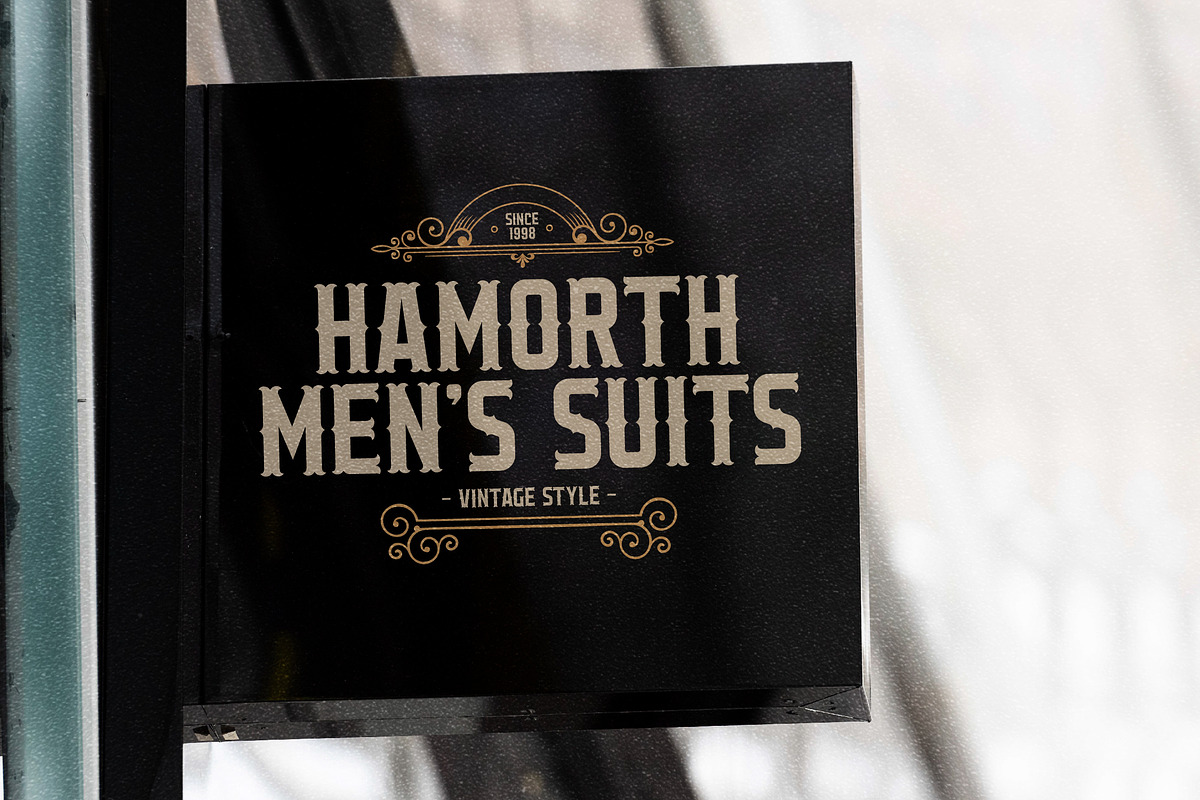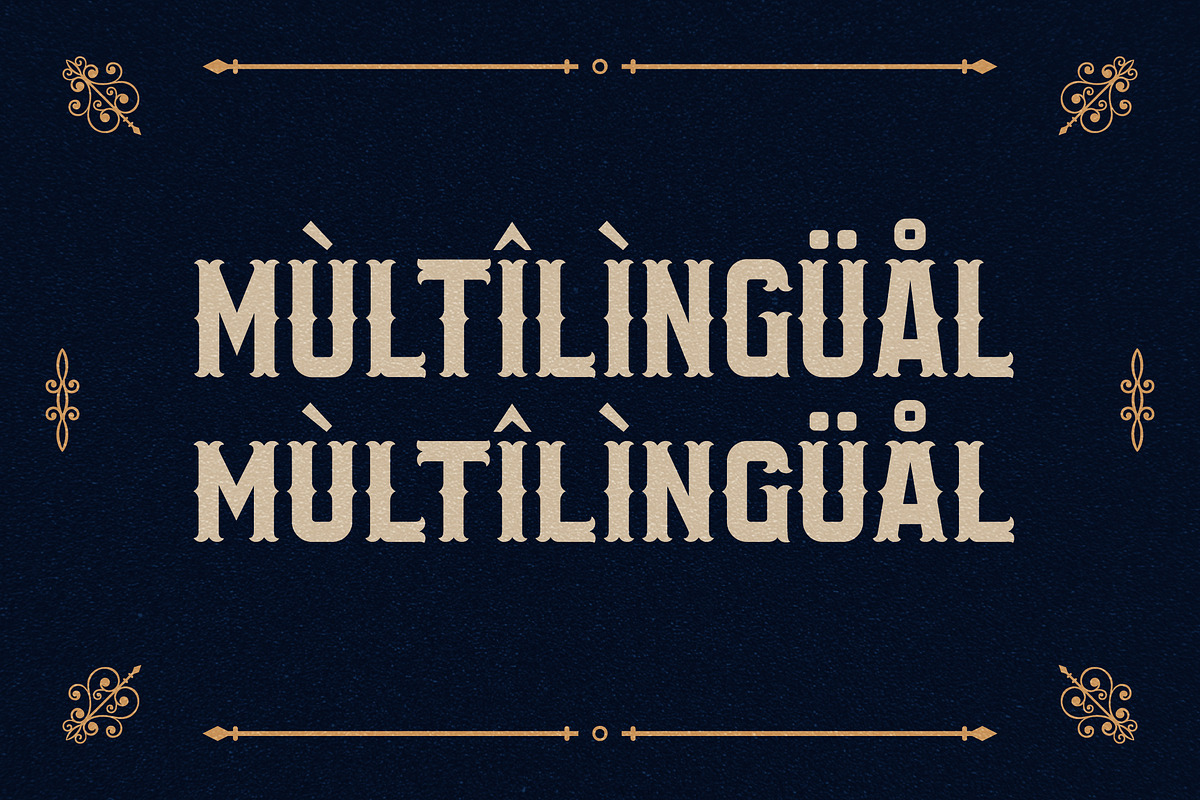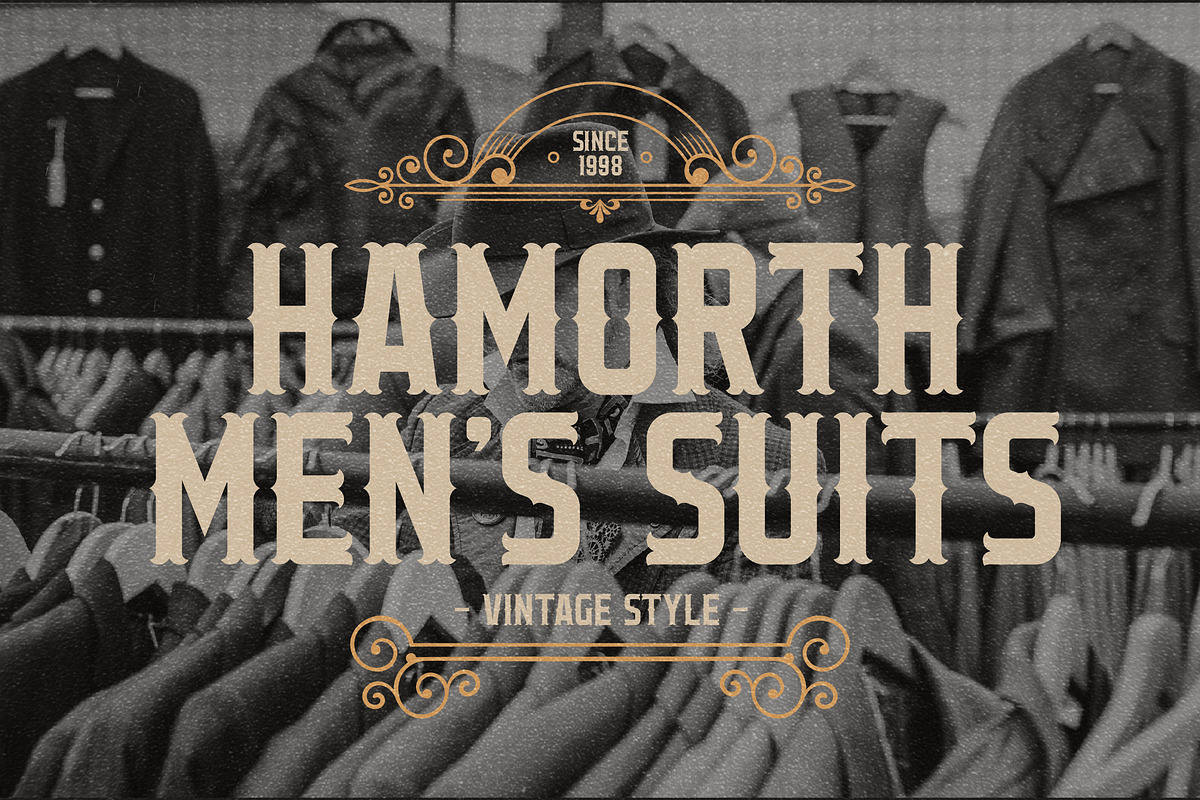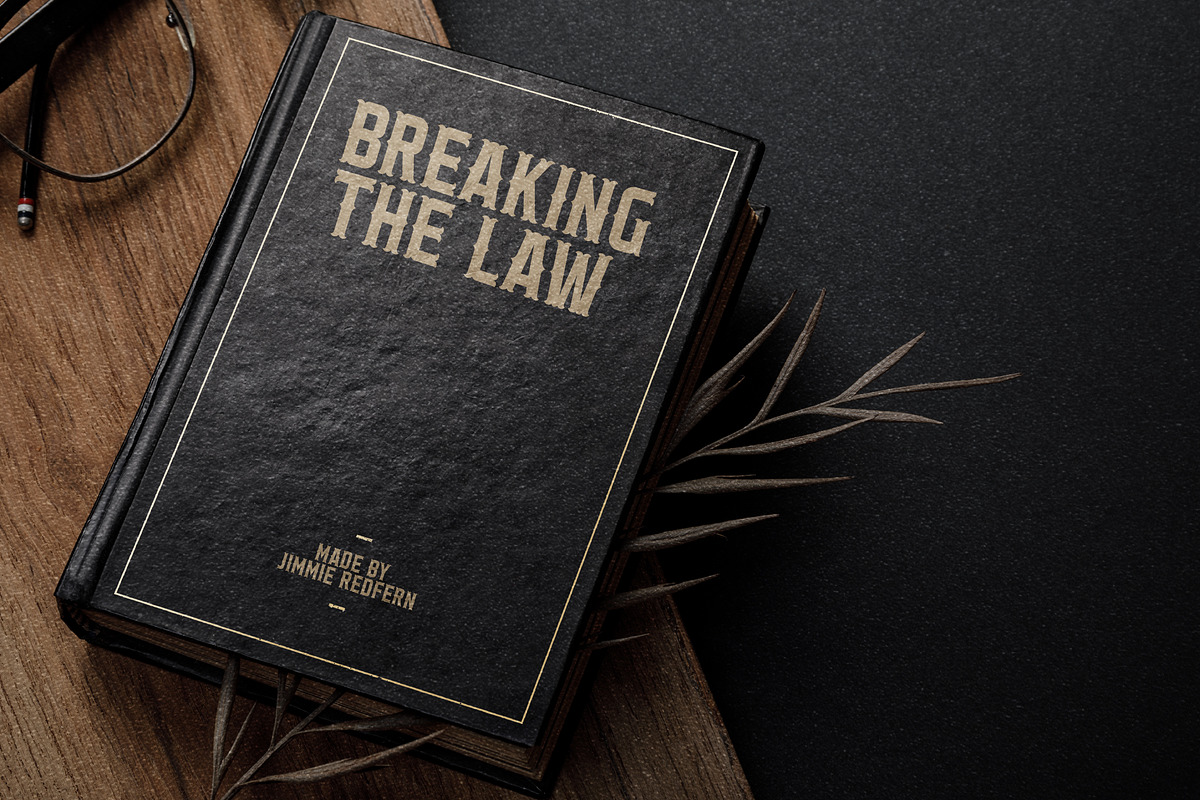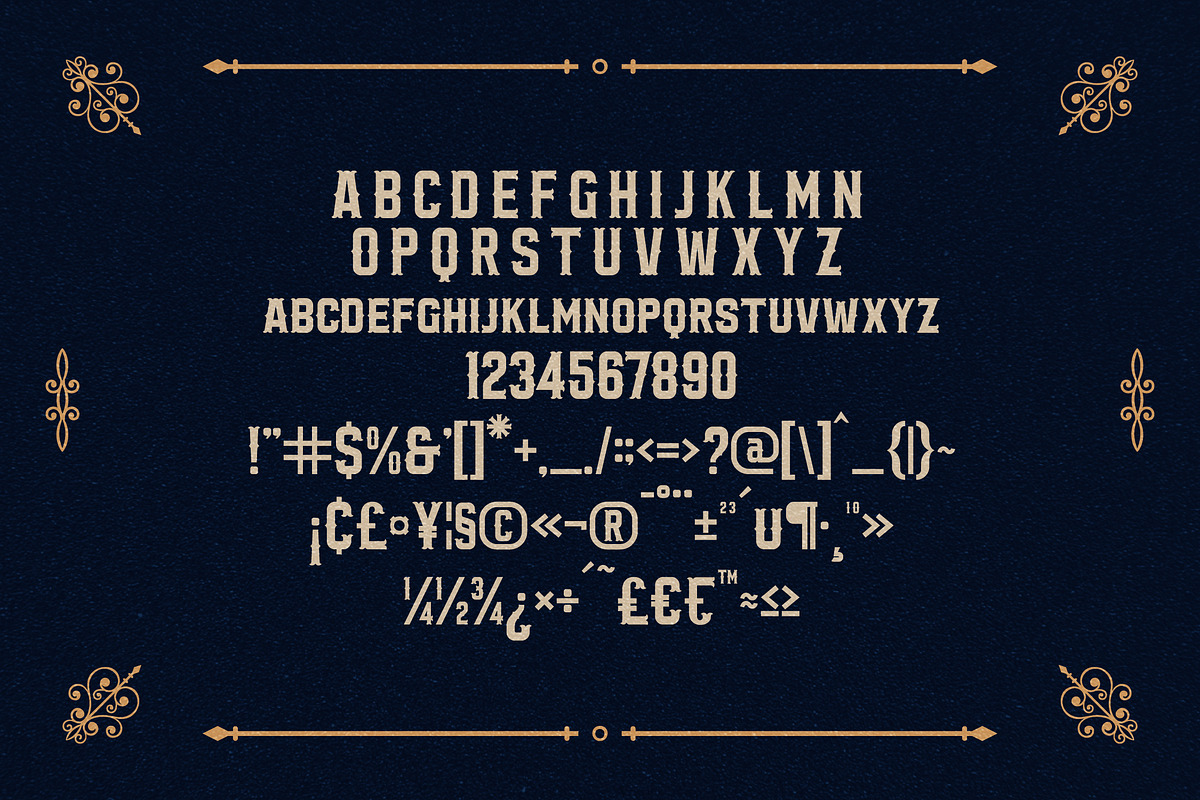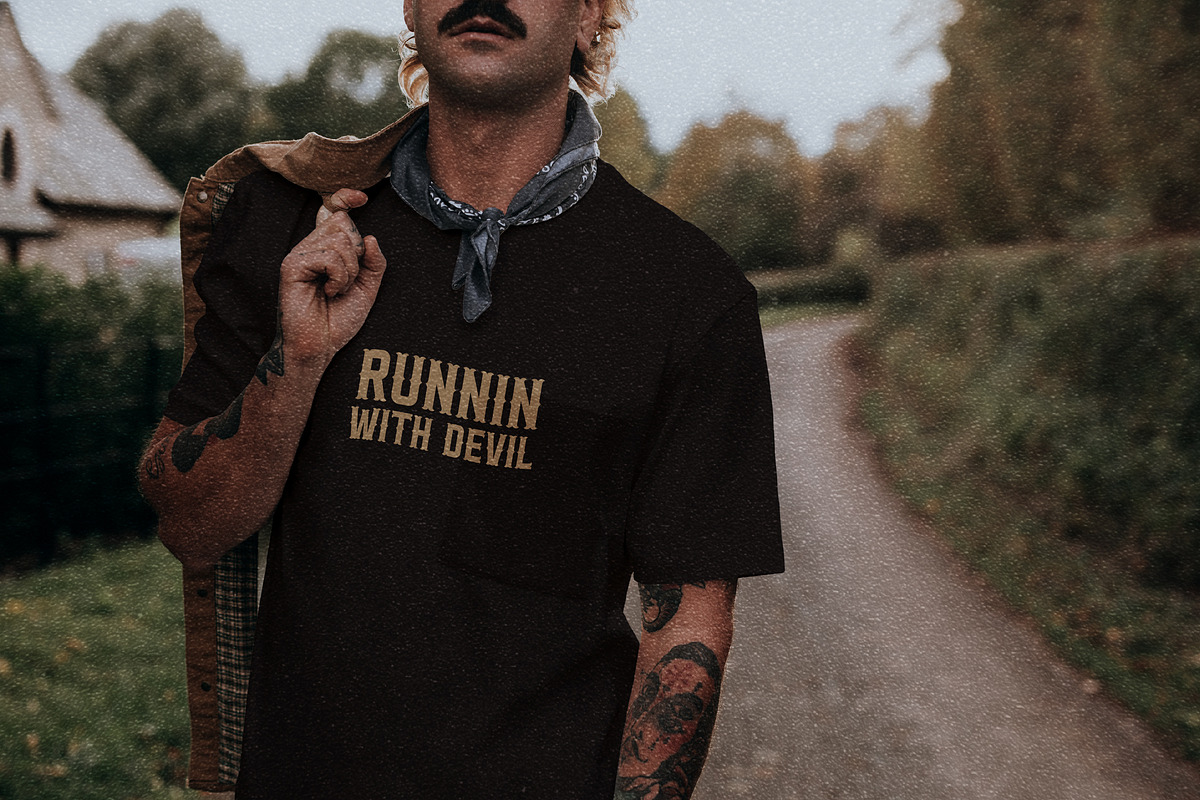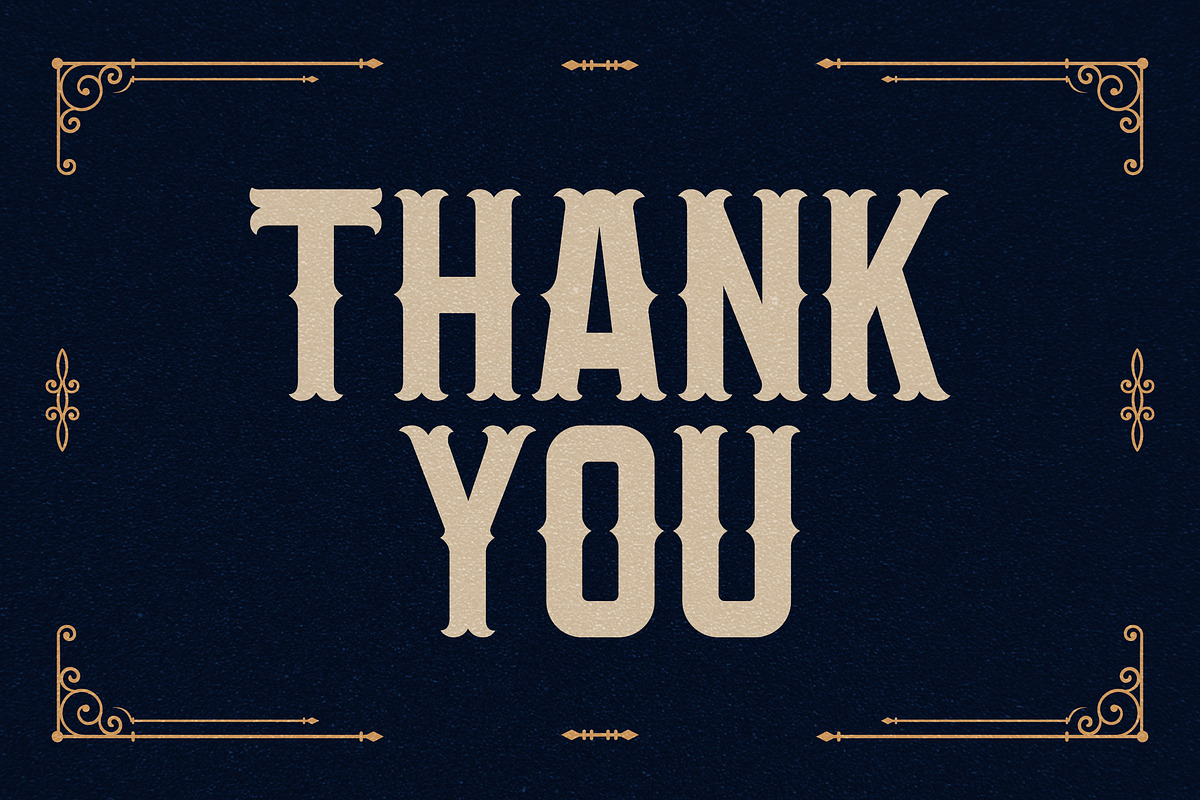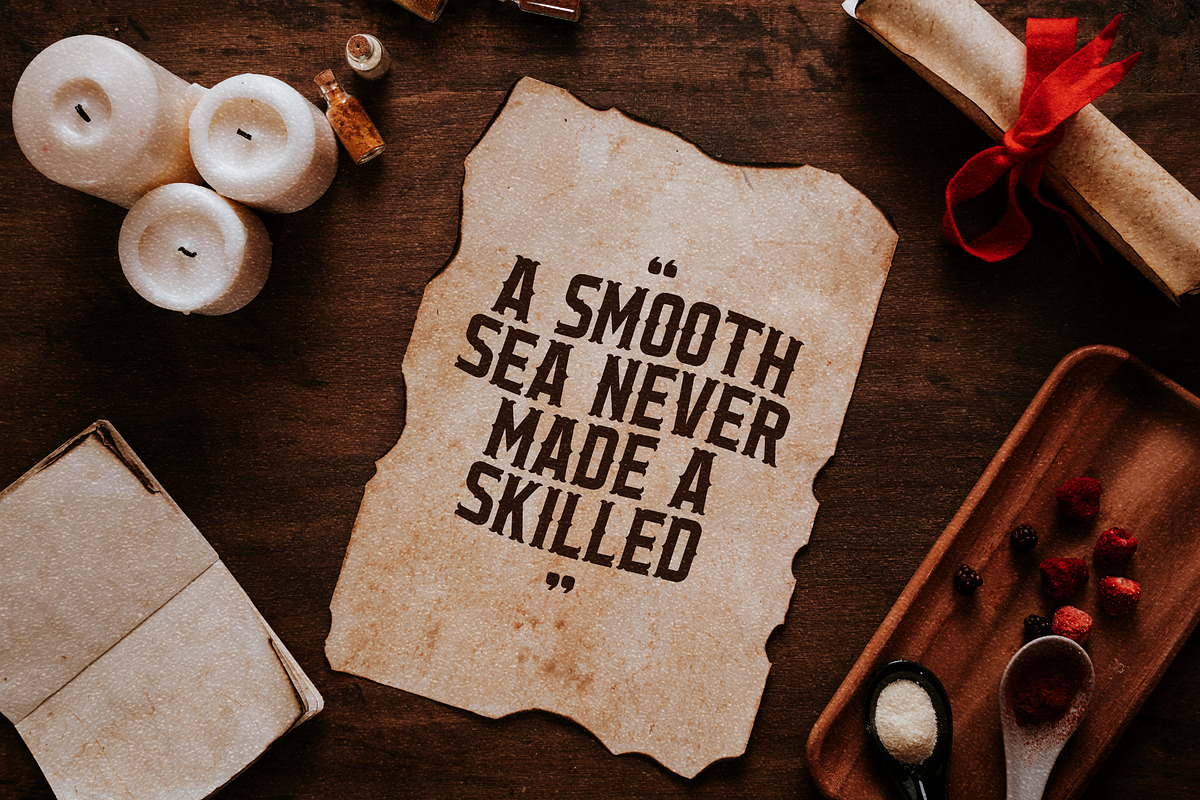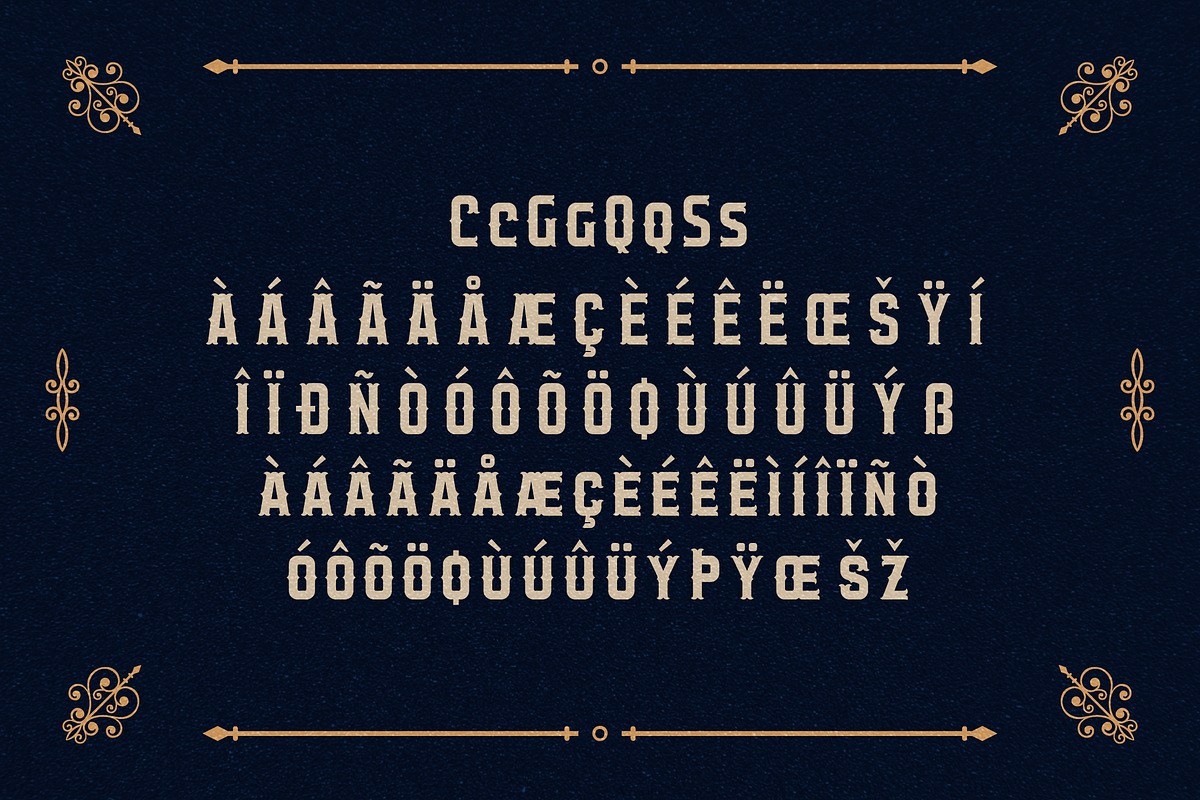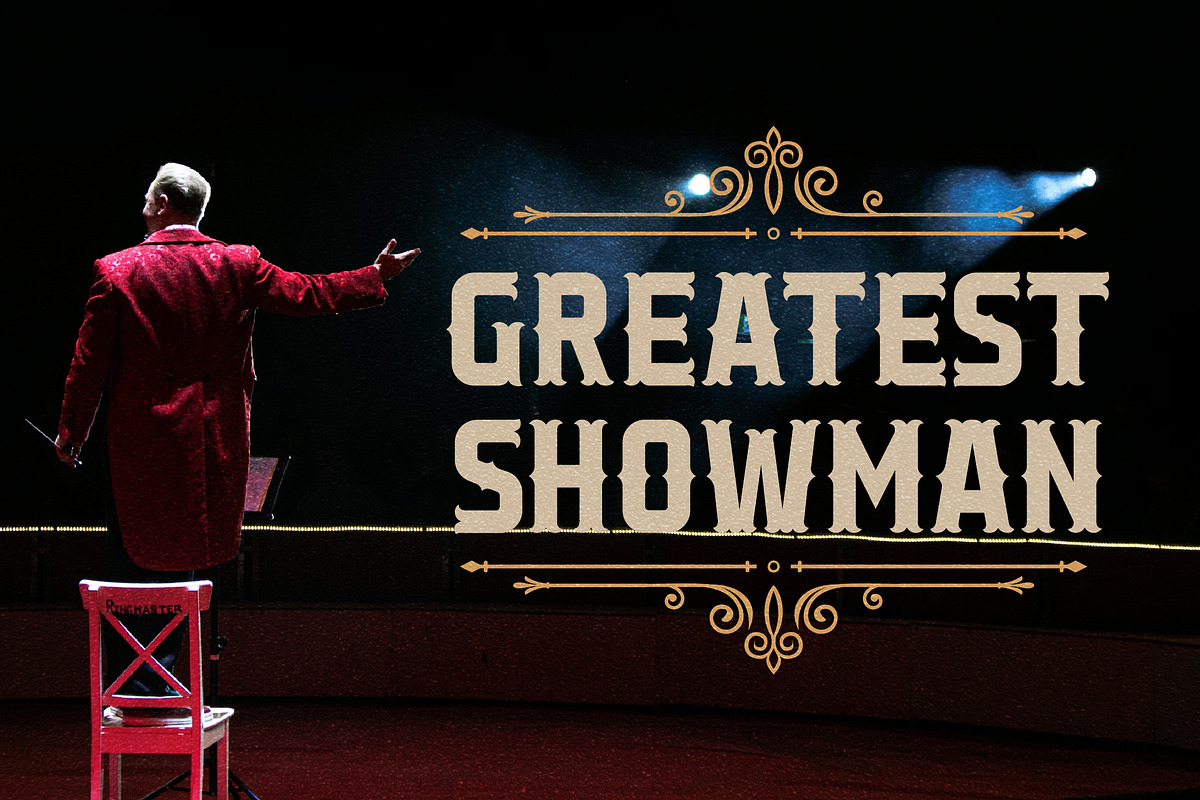
Chord Magical Display Font
Proudly present CHORD MAGICAL Typeface , created by Storytype, A serif modern and classic typeface that has own unique style & modern look. This typeface is perfect for an elegant & luxury logo, book or movie title design, fashion brand, magazine, clothes, lettering, quotes, and so much more.